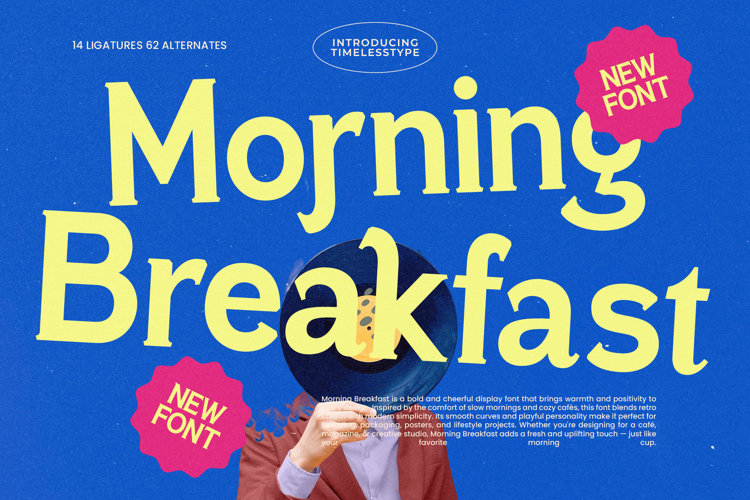
Morning Breakfast - Display Serif Font
Morning Breakfast - Display Serif Font is the definitive choice for designers seeking immediate personality and warmth. This display typeface expertly marries a robust, chunky serif structure with playful, inviting curves, offering a perfect blend of retro nostalgia and contemporary refinement. Designed to command attention, its heavy weight and high-impact aesthetic ensure that headlines and titles are impossible to overlook, creating memorable and engaging visual communications.
Unlock unparalleled creative freedom with extensive typographic features built into Morning Breakfast - Display Serif Font. Equipped with 14 unique ligatures and 62 stylistic alternates, this font allows for deep customization, enabling designers to tailor the mood from subtly sophisticated to overtly playful. This wealth of glyphs ensures a polished, professional finish across all creative assets, solidifying its place as a robust workhorse for professional design studios.
Design without borders and reach a global audience effortlessly. With its extensive multilingual support, Morning Breakfast - Display Serif Font adapts seamlessly across global markets, making it incredibly versatile for international projects. This comprehensive language coverage means your branding maintains its unique character and high legibility, whether you are targeting European capitals or global lifestyle platforms.
Perfect for capturing that cozy, yet sophisticated, modern café vibe, Morning Breakfast - Display Serif Font excels in environments requiring a cheerful, bold voice. It is the ultimate solution for luxury branding, artisanal product packaging, lifestyle magazine layouts, and high-visibility posters. Choose Morning Breakfast - Display Serif Font to inject an immediate sense of positivity and distinctiveness into your next editorial design project.